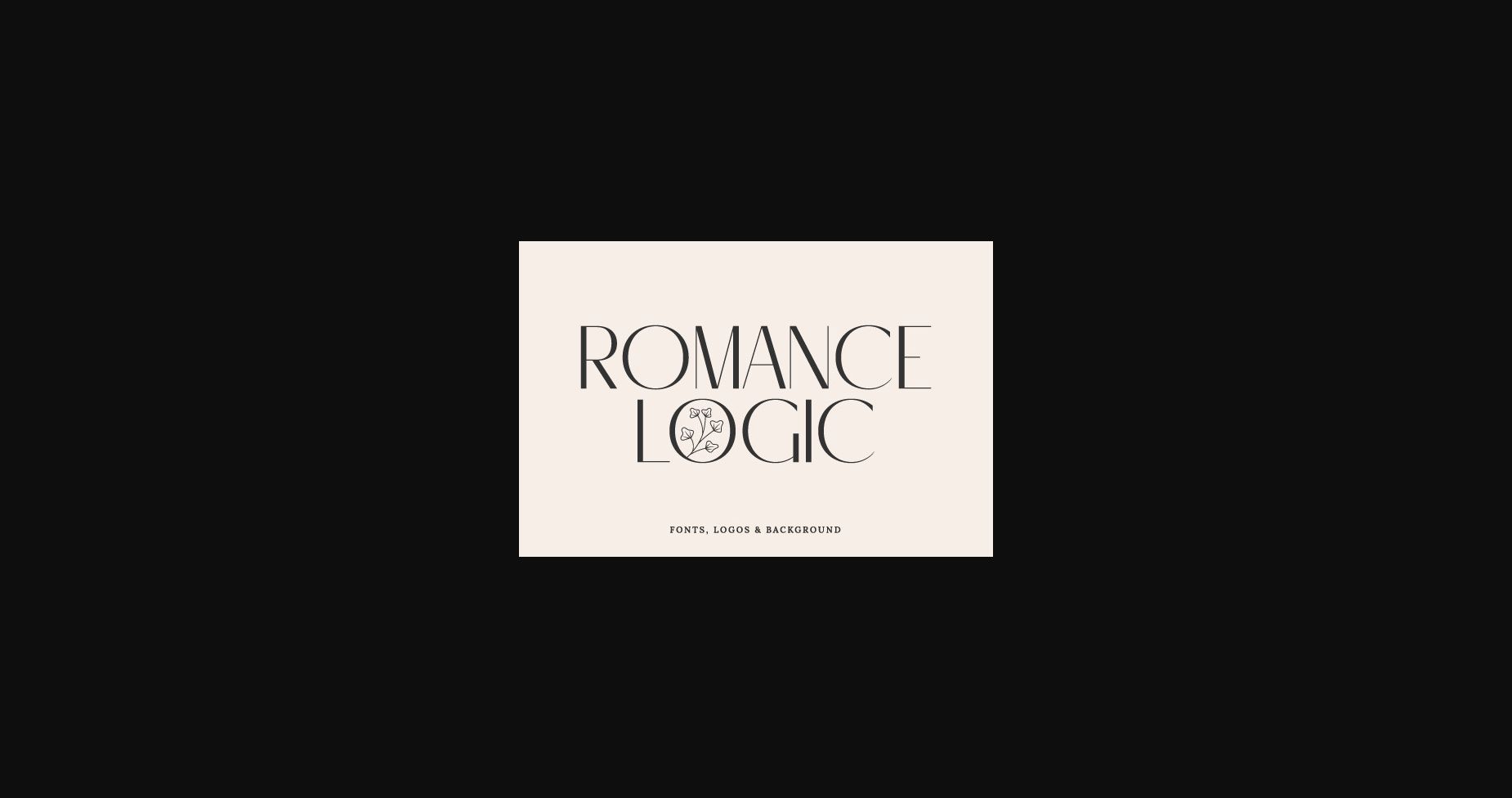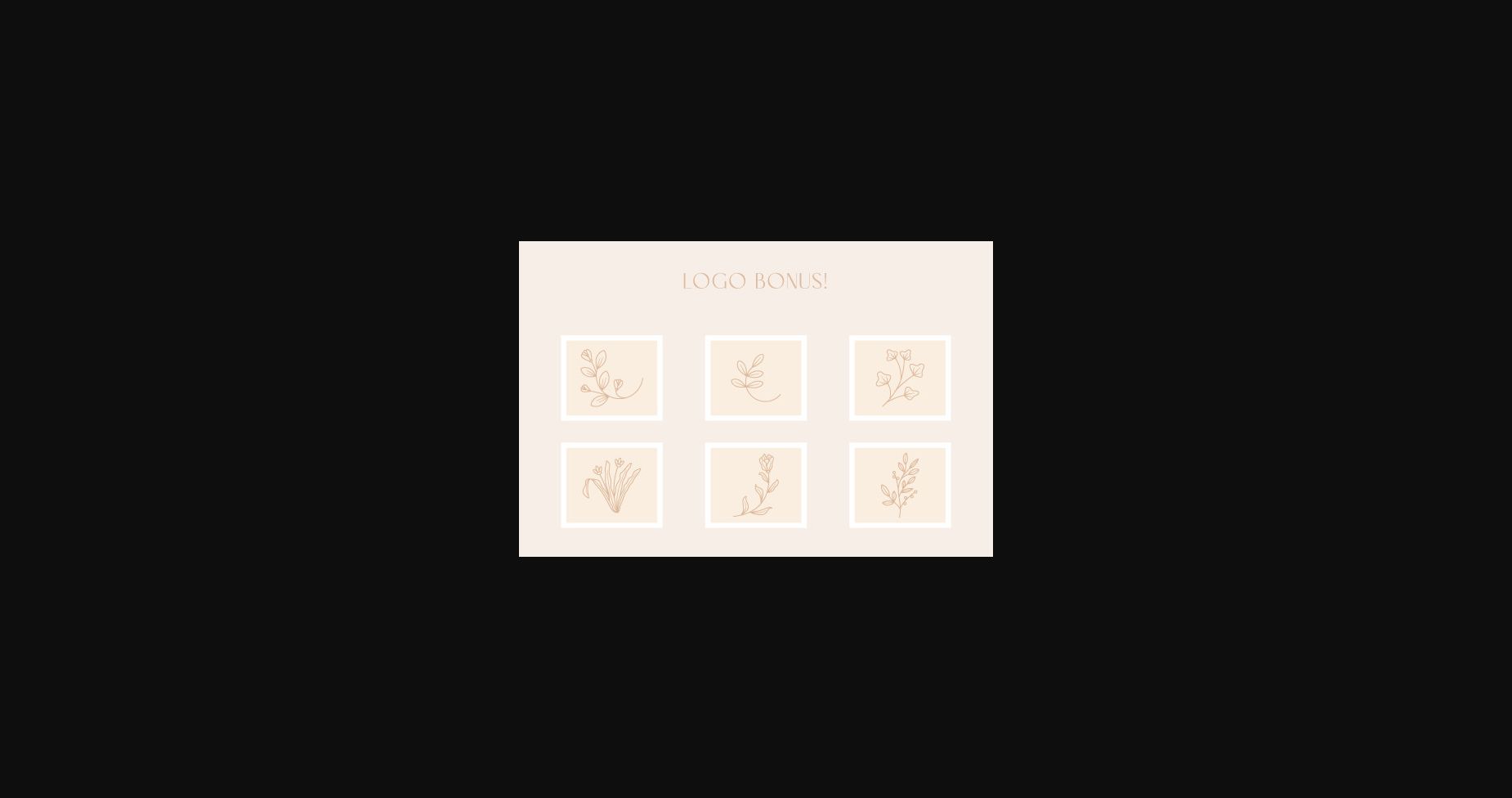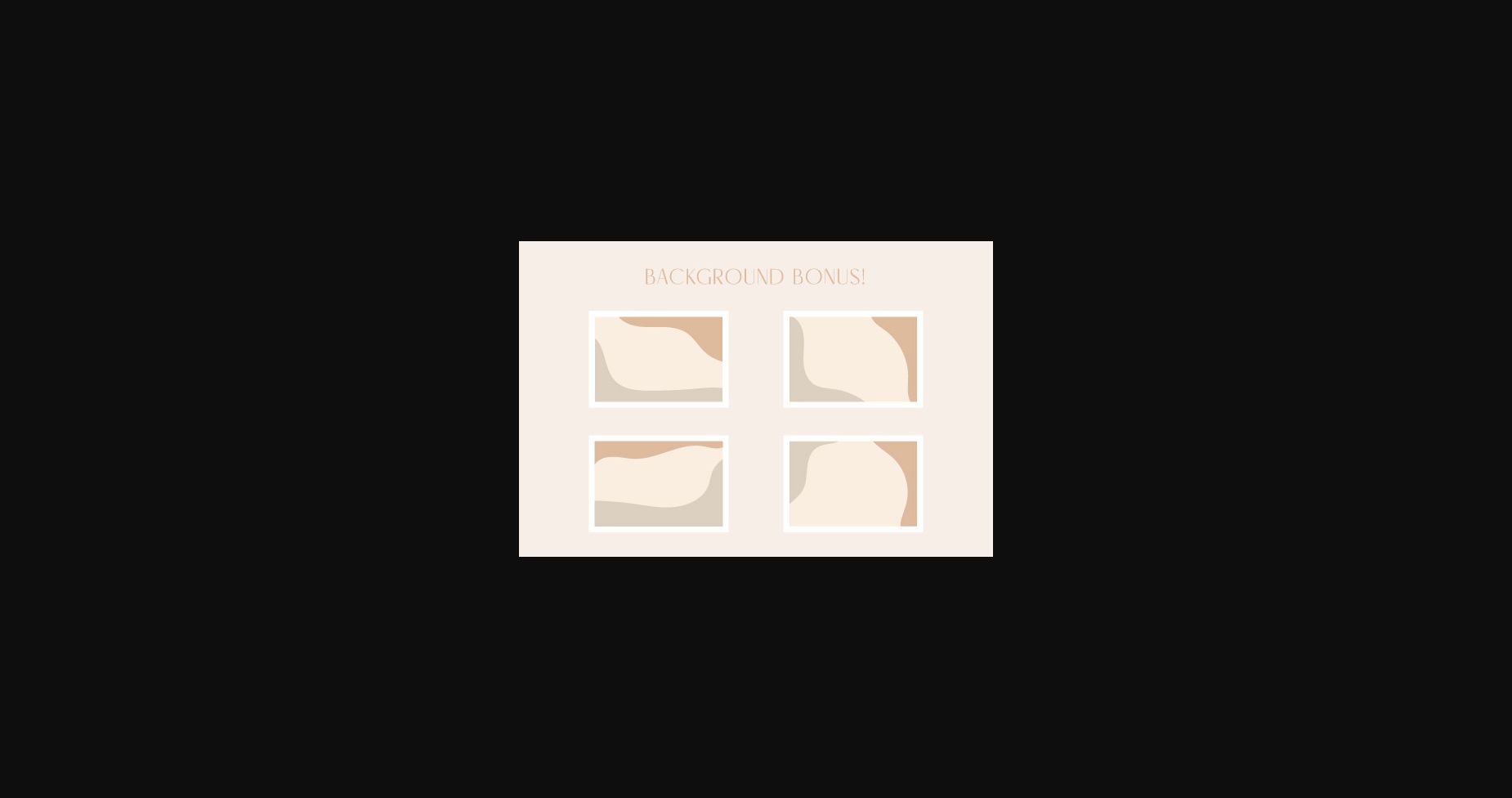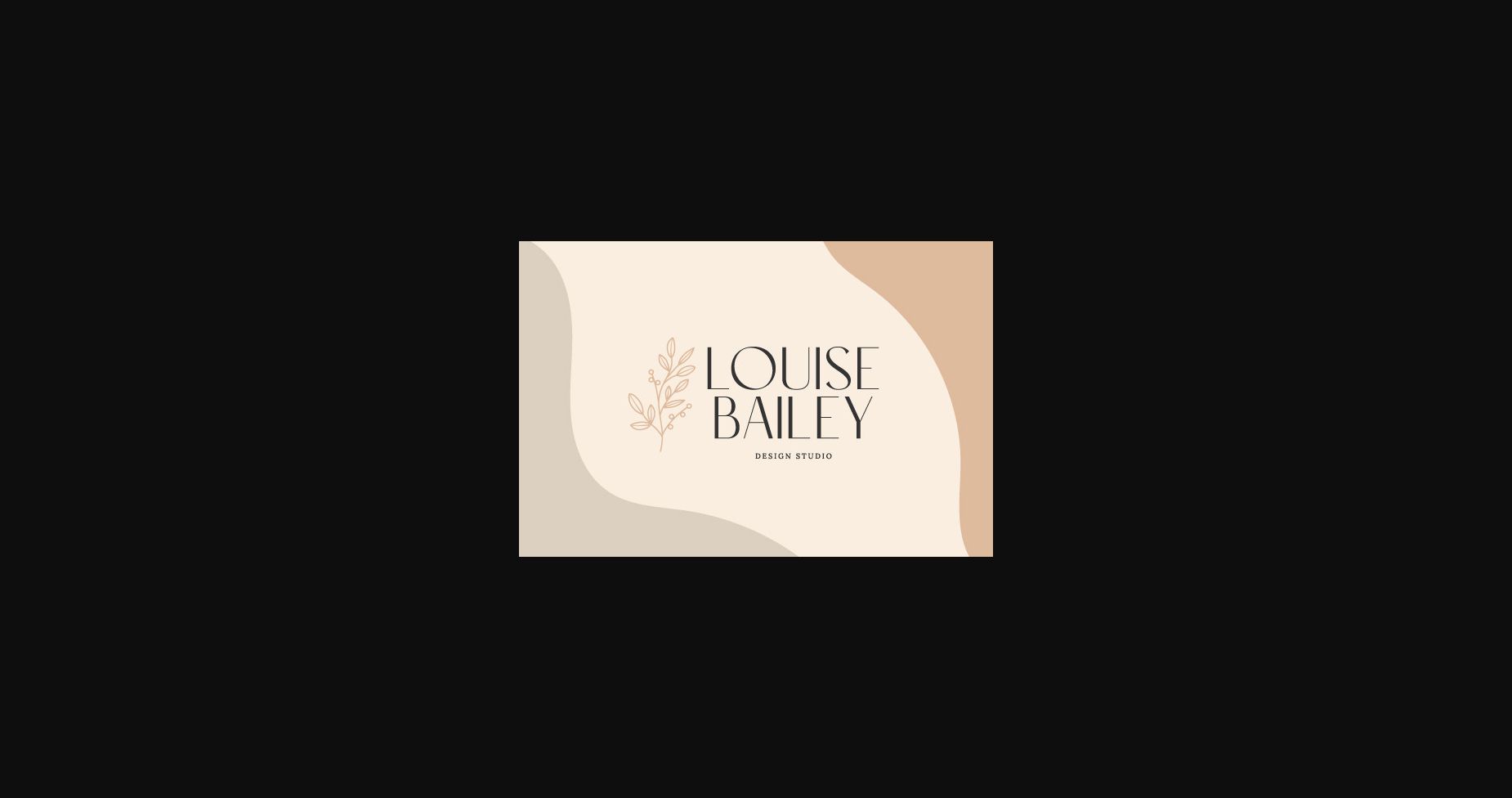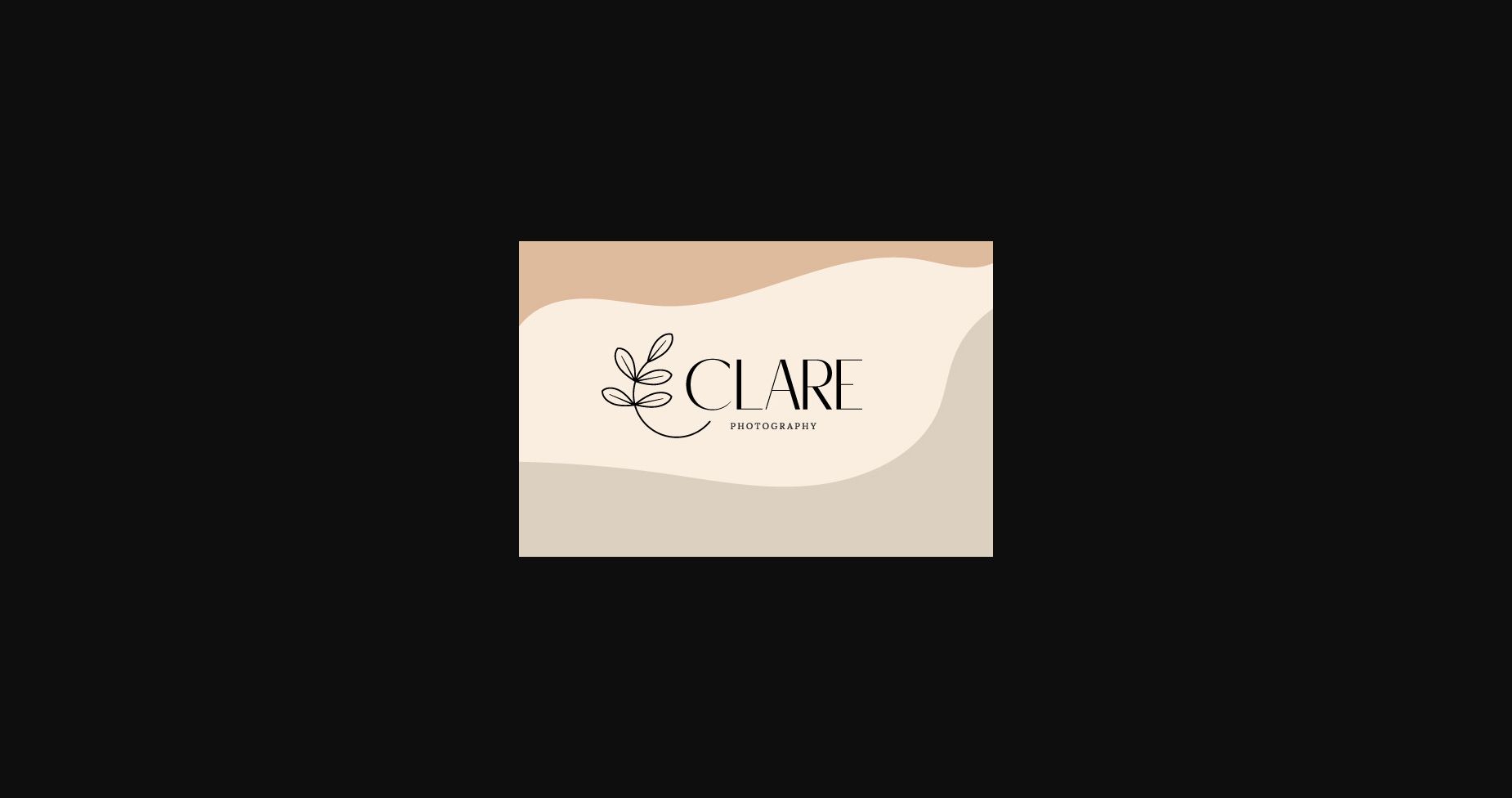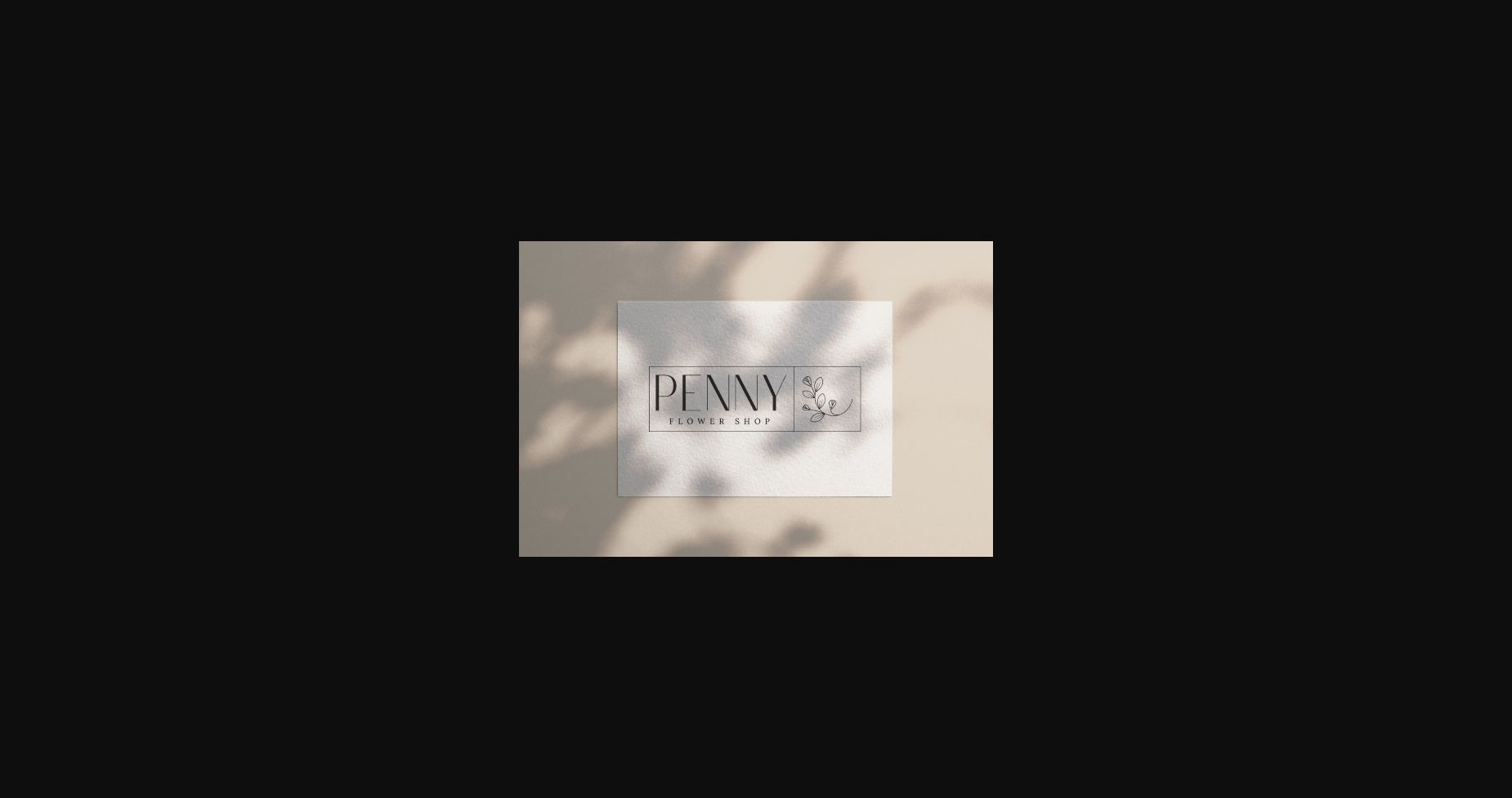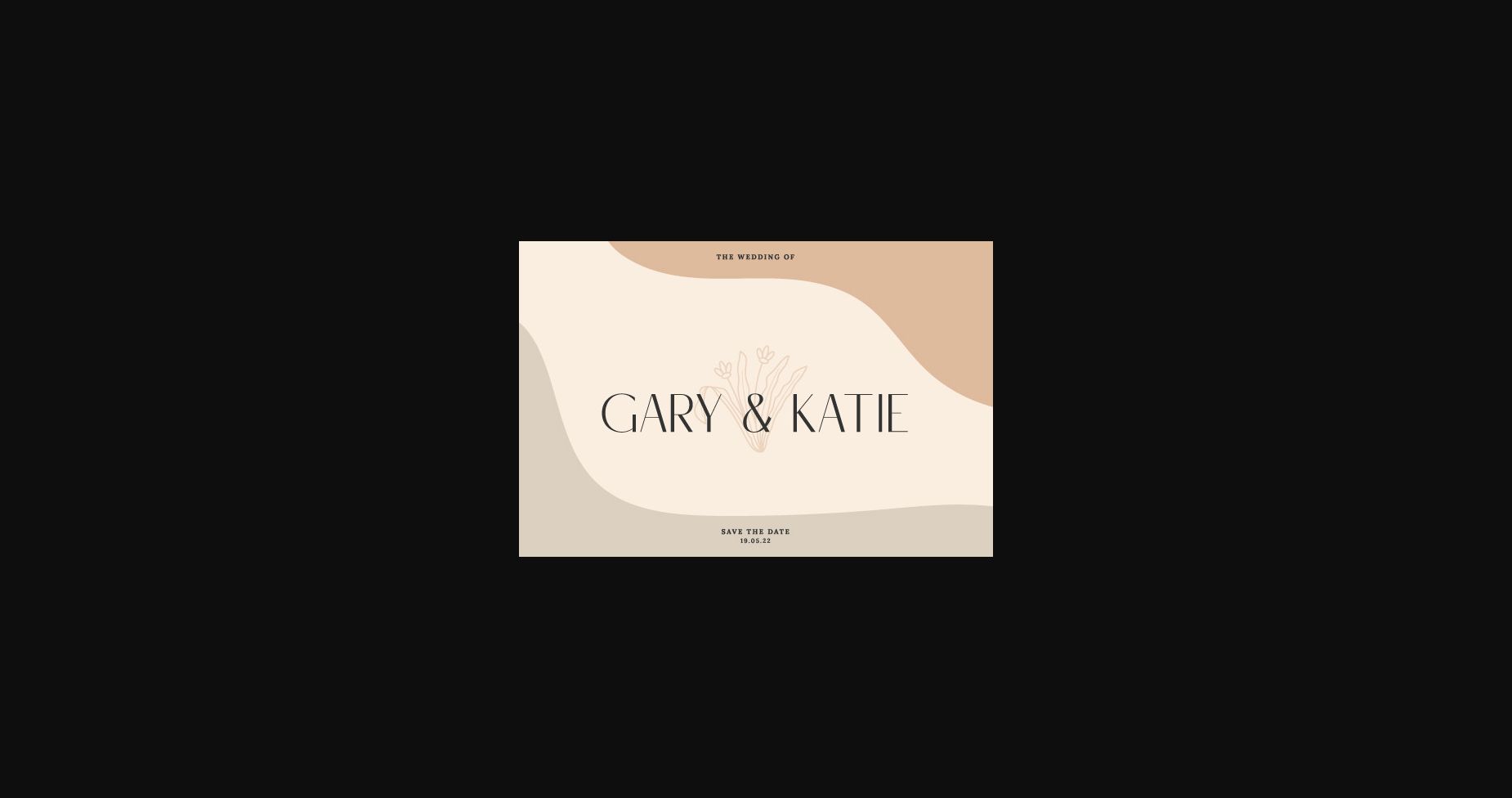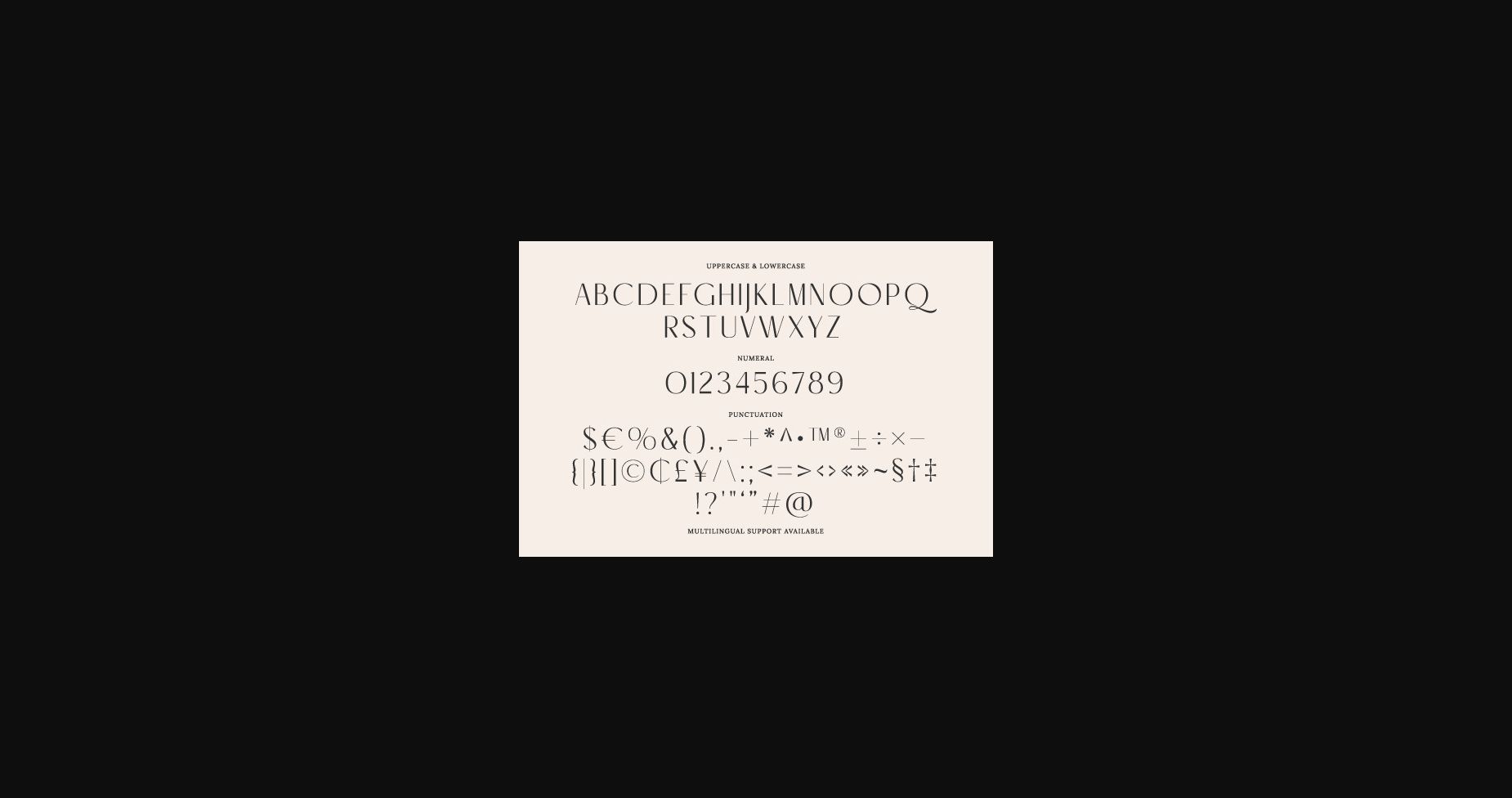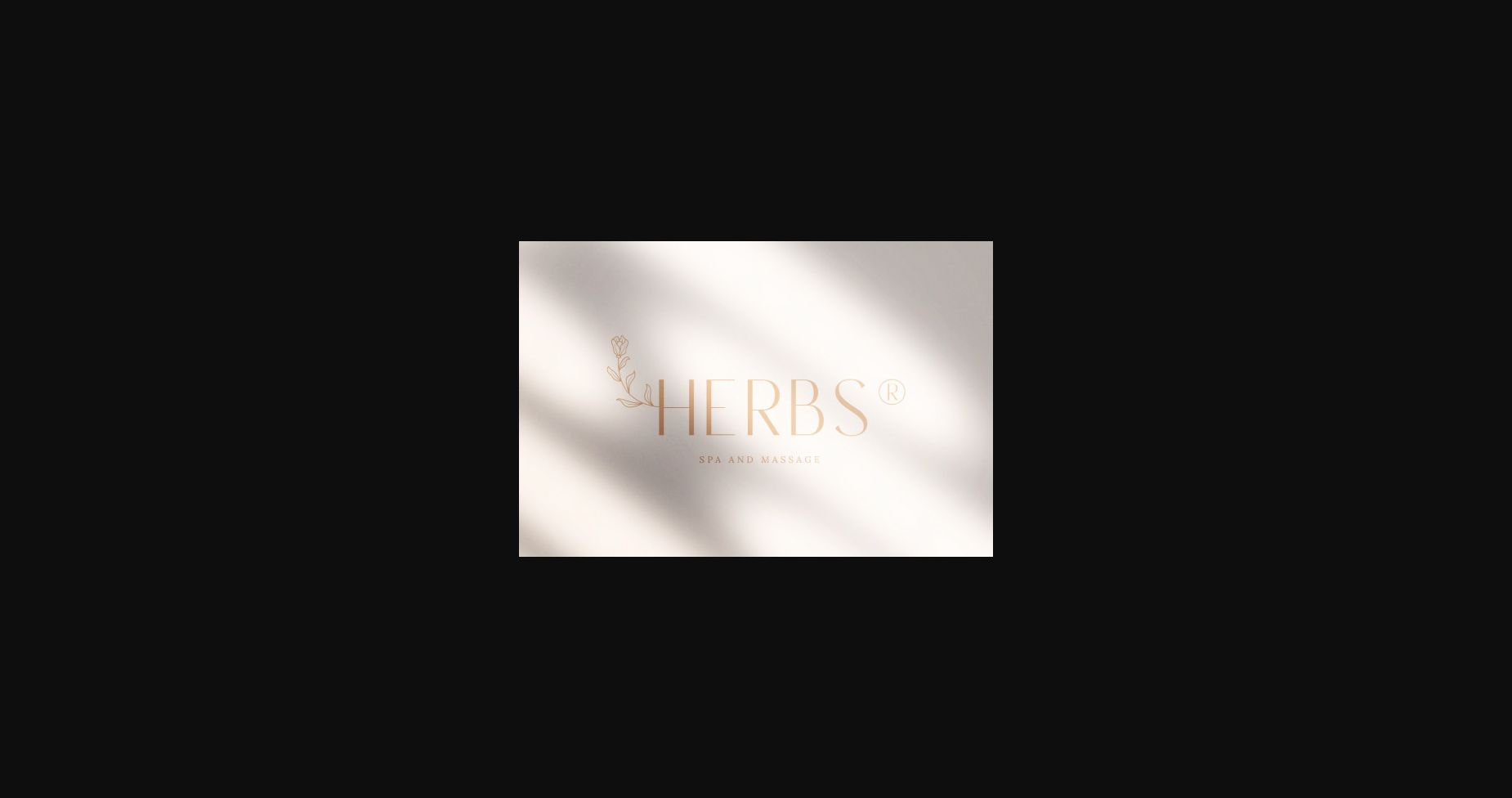
Romance Logic Font
About Romance Logic Font
Introducing a new typeface with a simple yet classy feel. Say hi to the “Romance Logic” font. Sans serif typeface with different widths on the letters C, D, G, O, and Q, makes this typeface unique. Plus a bonus logo and background that further supports your work. Suitable for branding designs, logos, creative posts, etc.